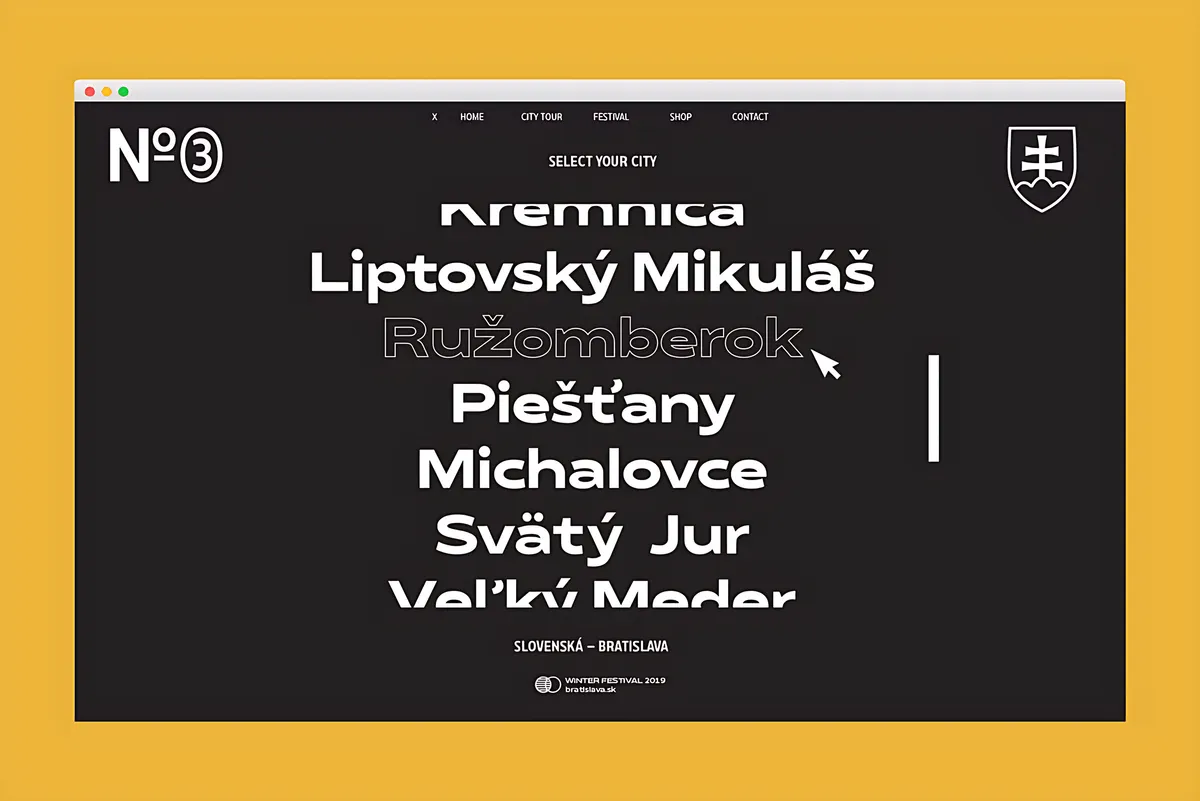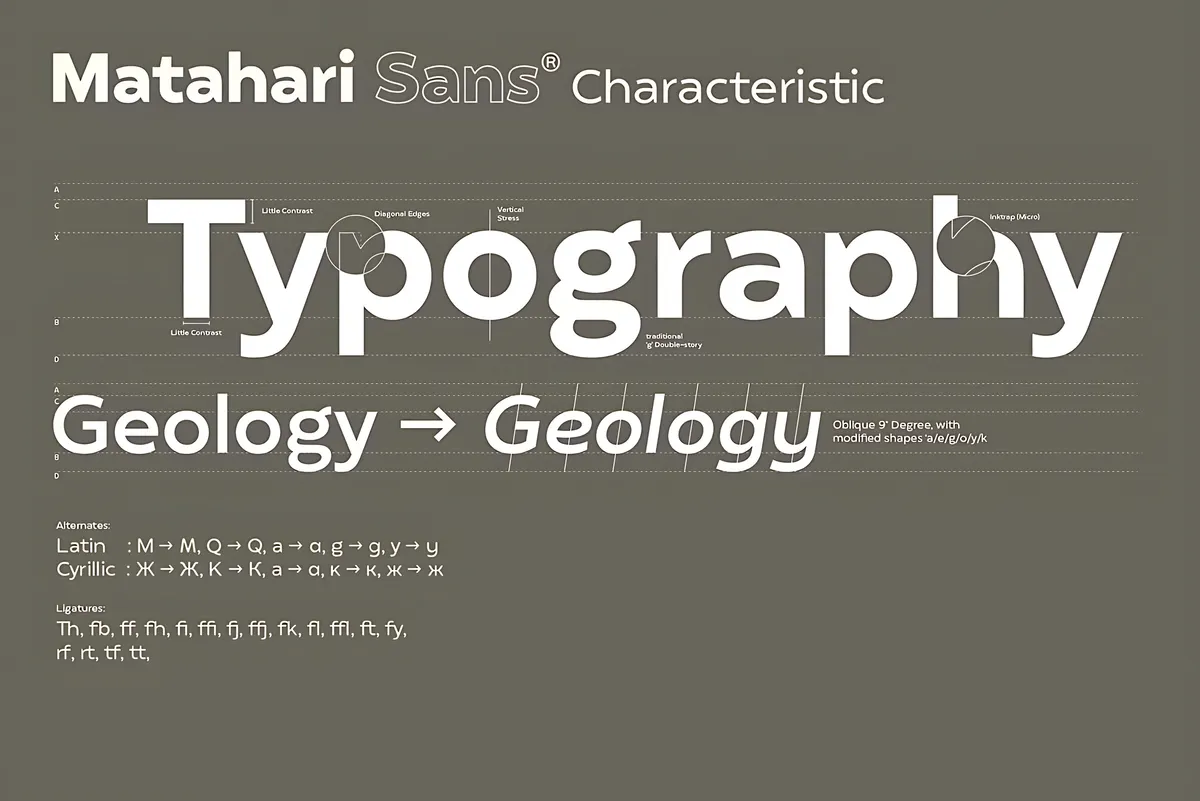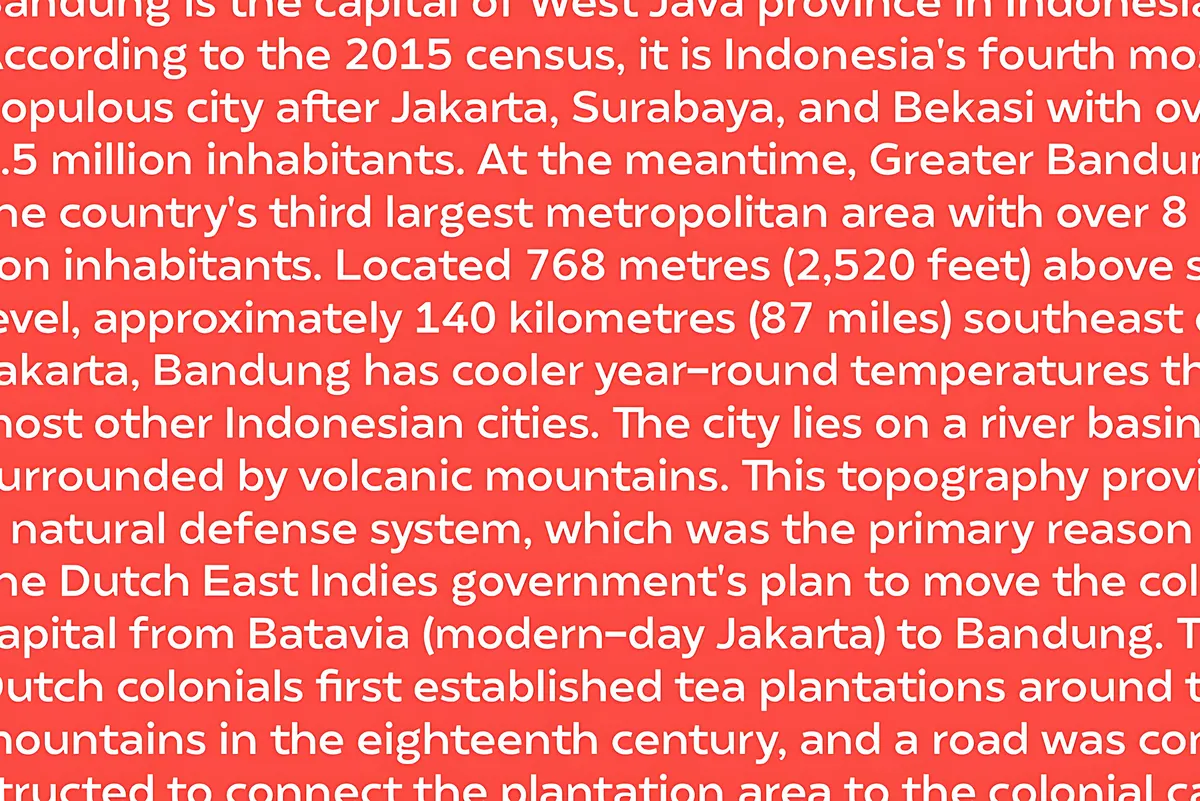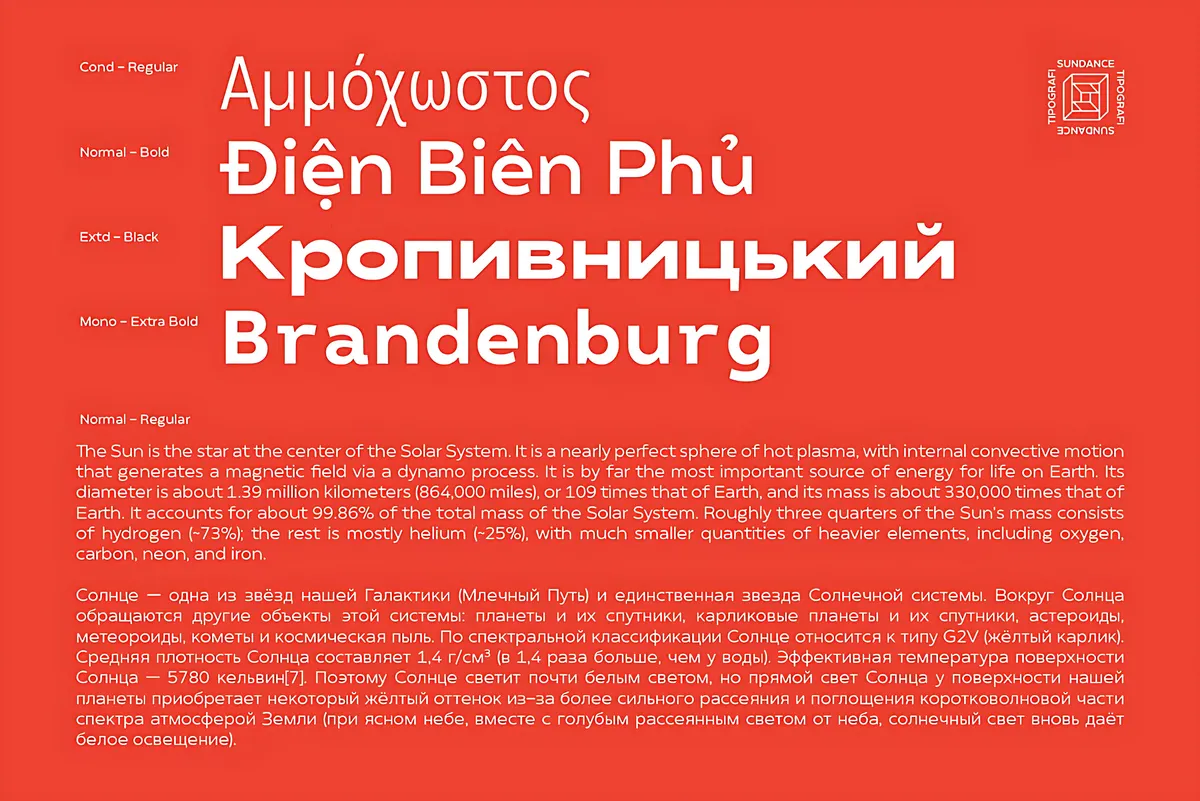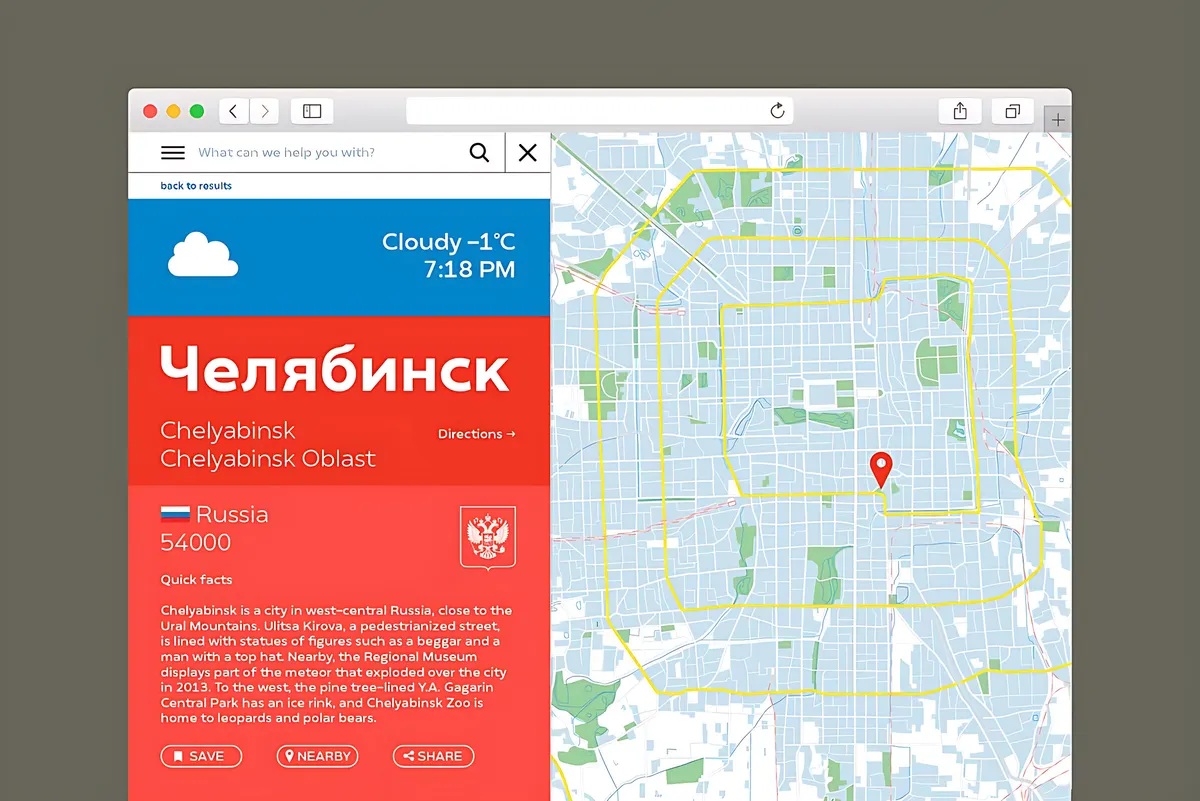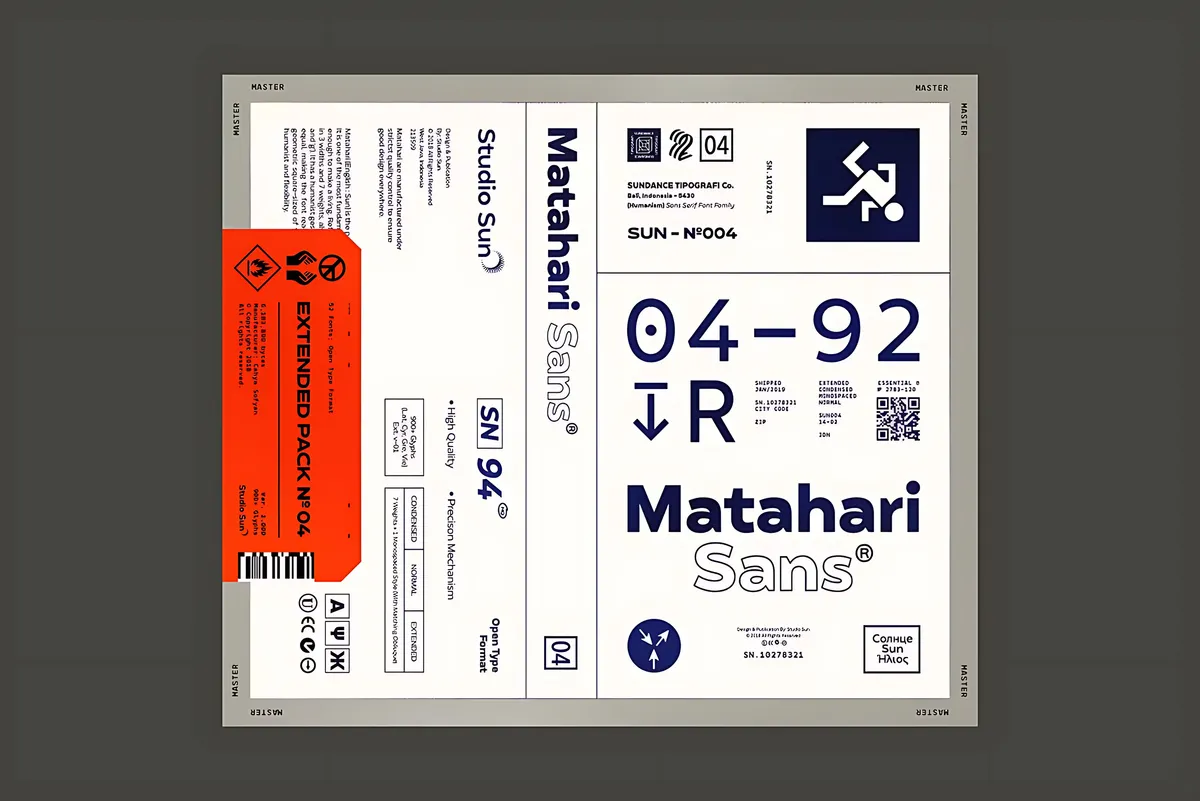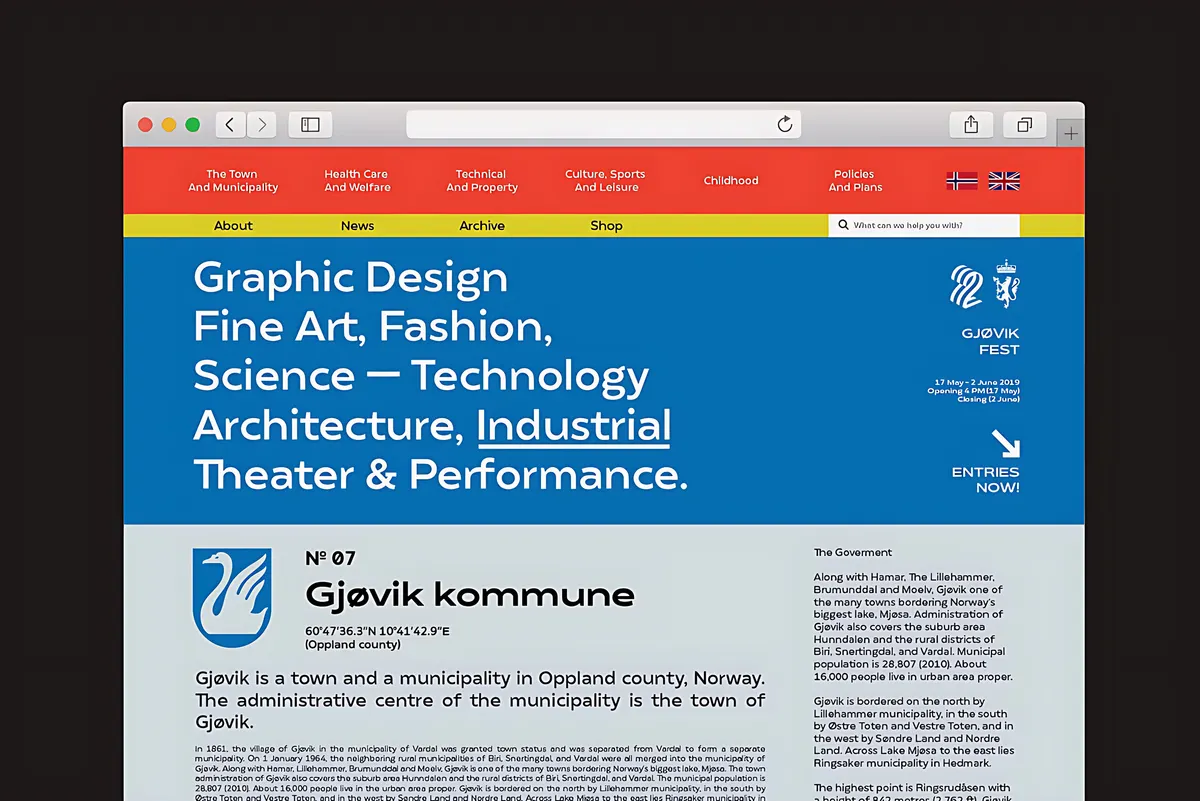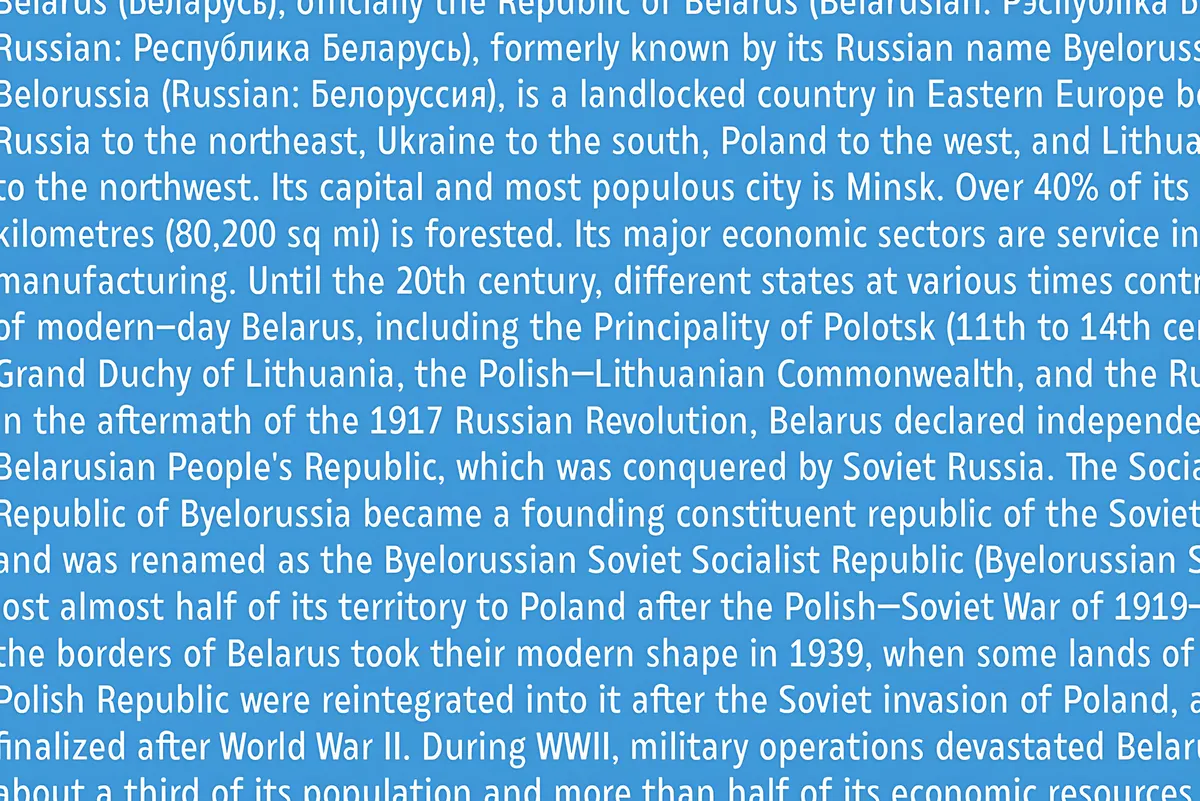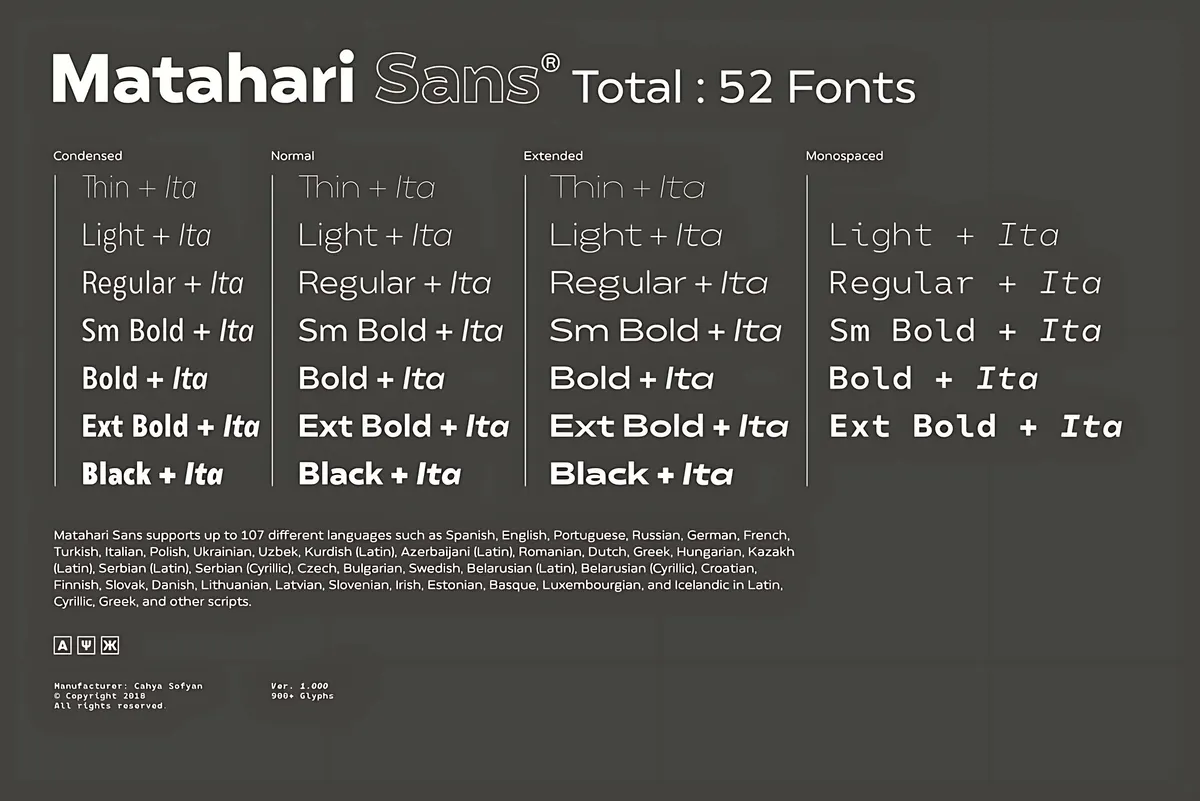
Matahari Sans Font Family
Matahari means sun in Indonesian, and Studio Sun drew it in Bali as a working system for information design. This humanist sans serif font family is semi-monolinear, with vertical stress, diagonal-cut edges, and micro ink traps at the joints.
The double-storey a and g come from the oldstyle and transitional tradition — the same choice Eric Gill made in 1928 for Gill Sans, which he built on Edward Johnston's 1916 alphabet for the London Underground, the design that started the humanist sans as a genre. The M sits on a square, while S, C, G, c, and e are drawn with uneven curves, which keeps long text from going mechanical.
- 52 fonts: 3 widths (Condensed, Normal, Extended) plus a Monospaced set;
- 7 weights: Thin, Light, Regular, SemiBold, Bold, ExtraBold, Black;
- uppercase & lowercase;
- numerals, punctuation, math symbols, arrows & currency;
- 17 ligatures, including Th, fi, ffl, ft & tt;
- Latin, Latin Pro, Vietnamese, Greek & Cyrillic;
- 95+ languages.